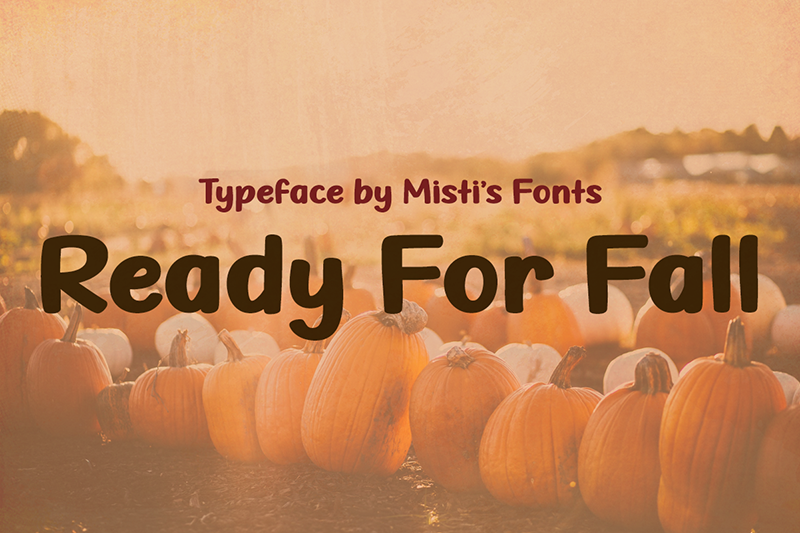
Font name: | Ready For Fall |
�Ready For Fall� is a bold handwritten font that brings the cozy charm of autumn to your designs. With its thick strokes and natural, hand-drawn style, this font adds warmth and personality to any project. Perfect for seasonal invitations, greeting cards, social media posts, and so much more! Terms Of Use and Commercial Licensing: https://mistifonts.com/ready-for-fall/ |